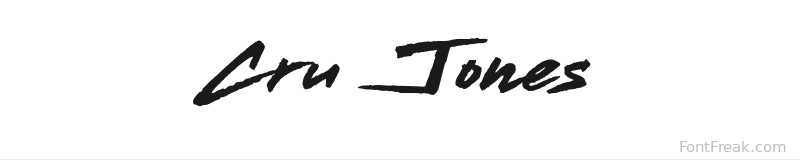
Cru Jones
Cru Jones by BLKBK Fonts is a captivating script font that brings an artistic flair to any design project. Characterized by its fluid, handwritten style, this font exhibits a stylish yet approachable aesthetic that resonates with a wide range of audiences. The strokes are dynamic with a moderate contrast, creating an engaging visual rhythm that draws the eye. The slightly irregular spacing adds to its handcrafted feel, making it perfect for designs that seek a personal touch.
The font's unique characteristics make it ideal for various applications. For instance, its informal elegance makes it a fantastic choice for wedding invitations, where couples want to convey a sense of intimacy and warmth. It also works beautifully on restaurant menus, adding a touch of sophistication to the dining experience. Additionally, due to its playful nature, the Cru Jones font is perfect for movie posters, where it can create a sense of excitement and anticipation. Small business owners looking to enhance their branding can use this font for logos or signage, ensuring their message stands out. Content creators will also find it useful for social media graphics, where capturing attention is key.
Targeted towards graphic designers, small business owners, and content creators, the Cru Jones font free download opens up a world of creative possibilities. Its versatility ensures that it can be utilized in both digital and print formats, making it an essential addition to any designer's toolkit.
What sets the Cru Jones font apart is its ability to blend elegance with a relaxed vibe. This balance makes it suitable for a variety of projects, ensuring that your designs not only communicate effectively but also leave a lasting impression. Embrace the charm of Cru Jones and elevate your visual storytelling today.